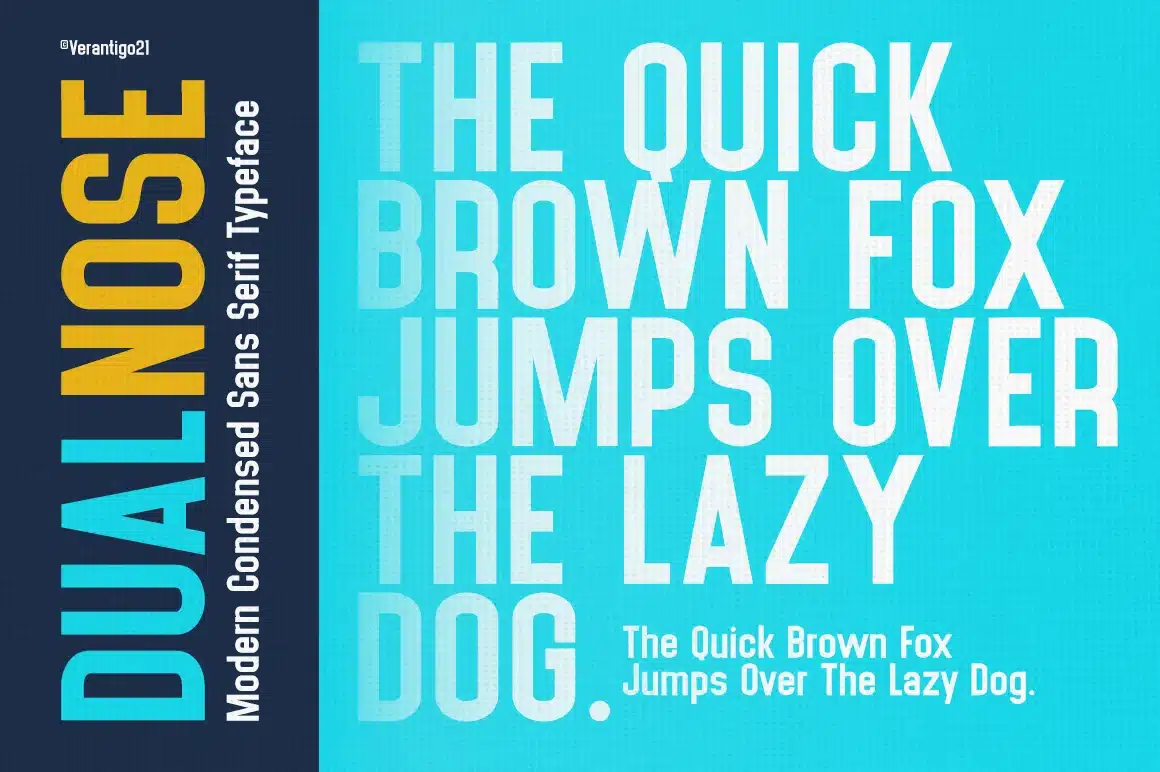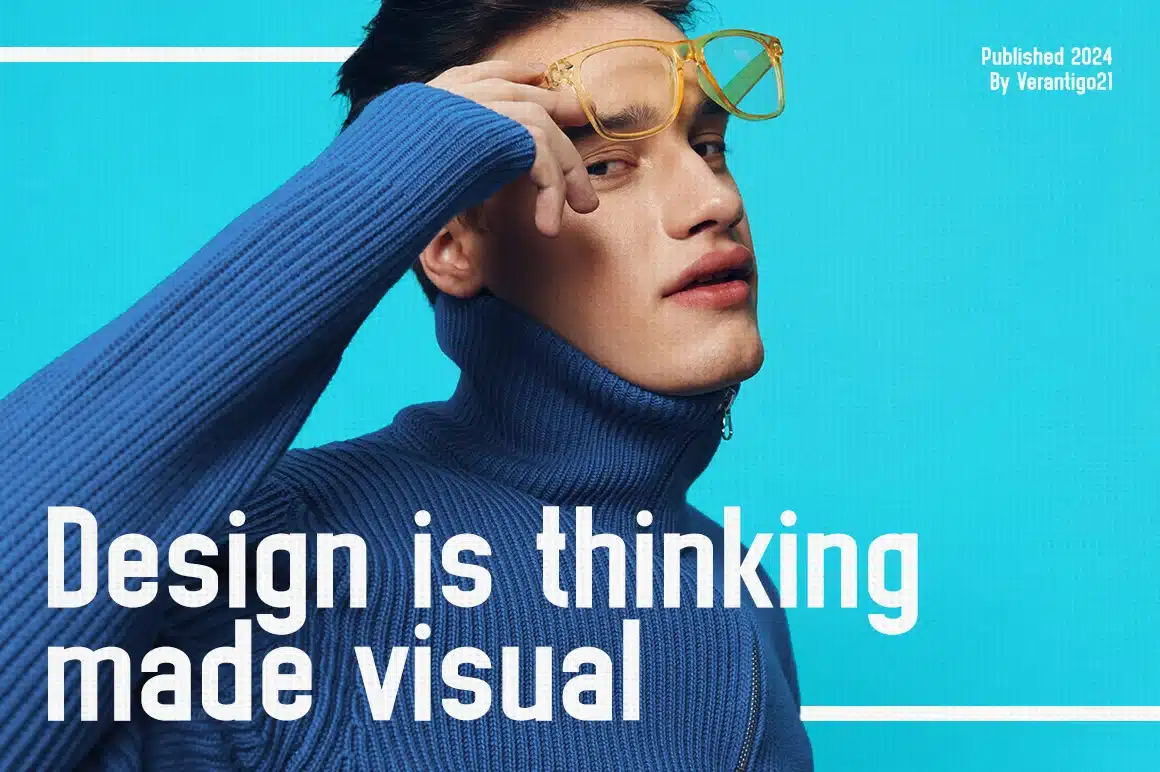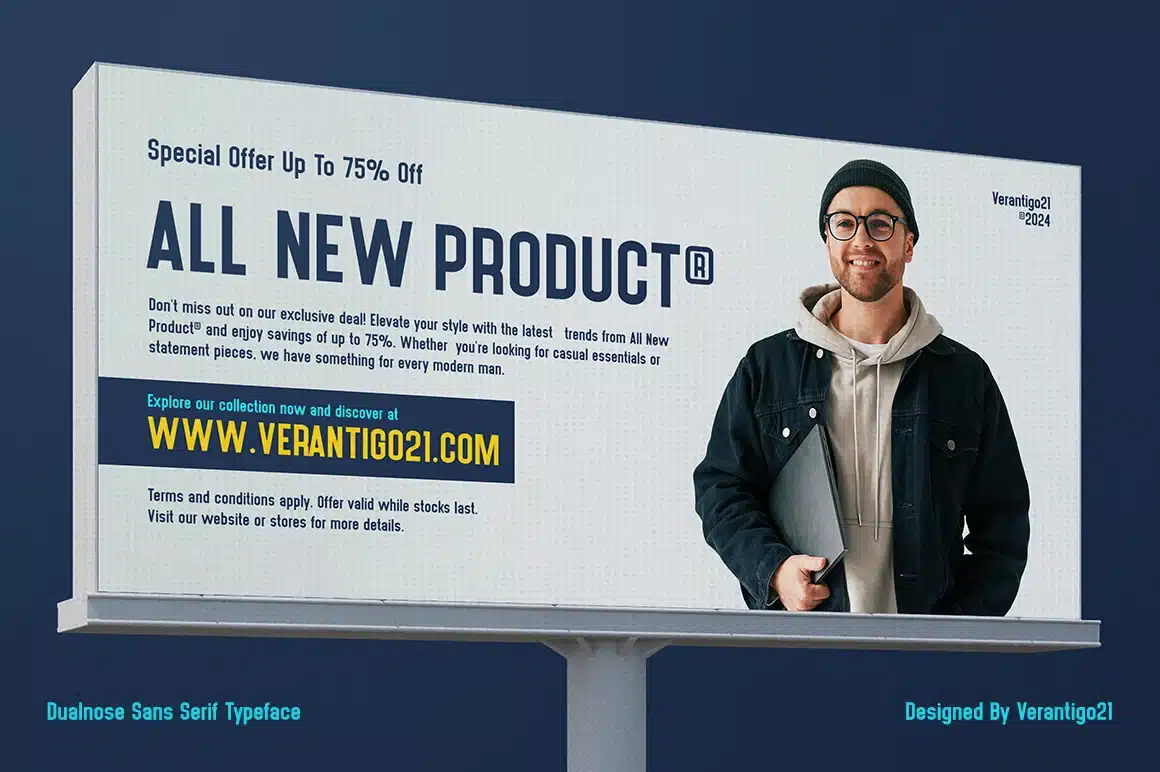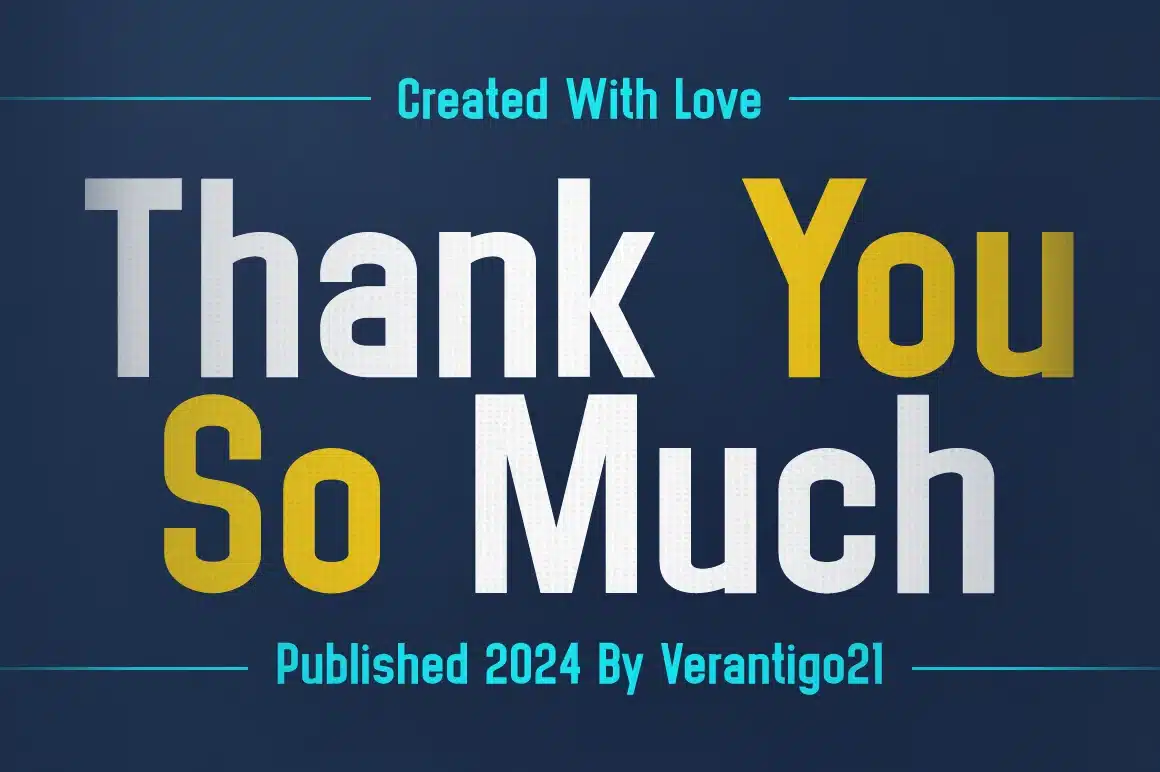
Dualnose Condensed Typeface Font
The Dualnose is inspired by famous logos. It’s simple, yet classy, and was made with precision and measured. It’s perfect for logos & branding, photography, invitations, watermarks, advertisements, product designs, stationery, wedding designs, product packaging, and much more!
Numeral and Punctuation
International Language